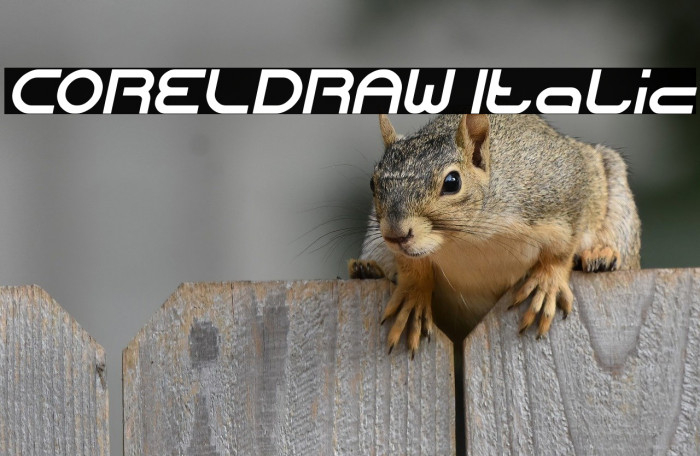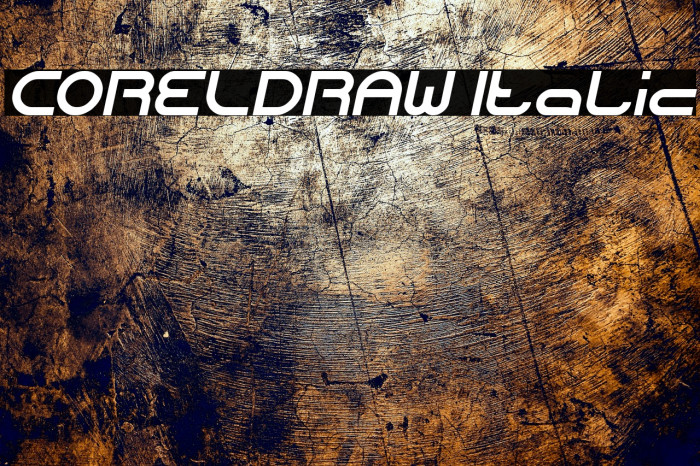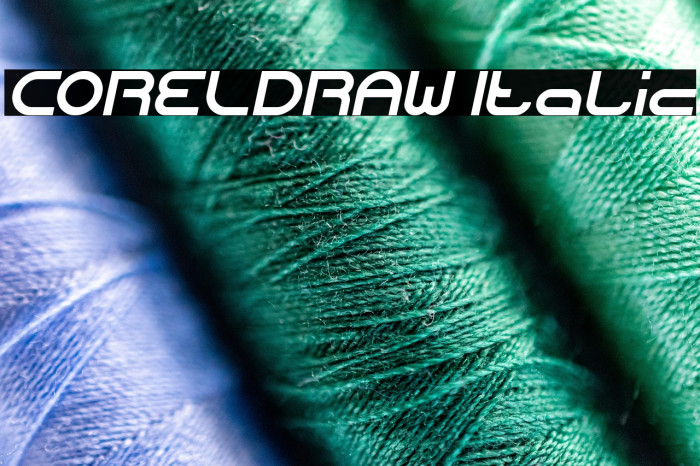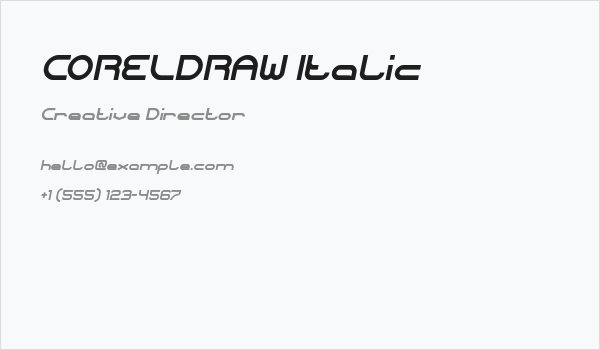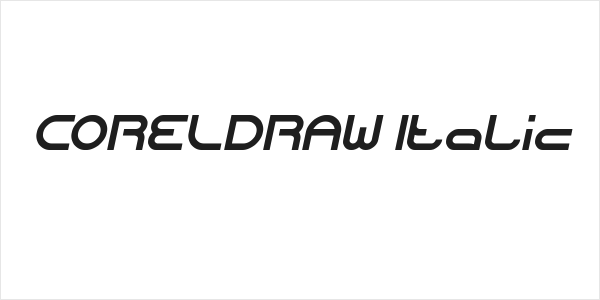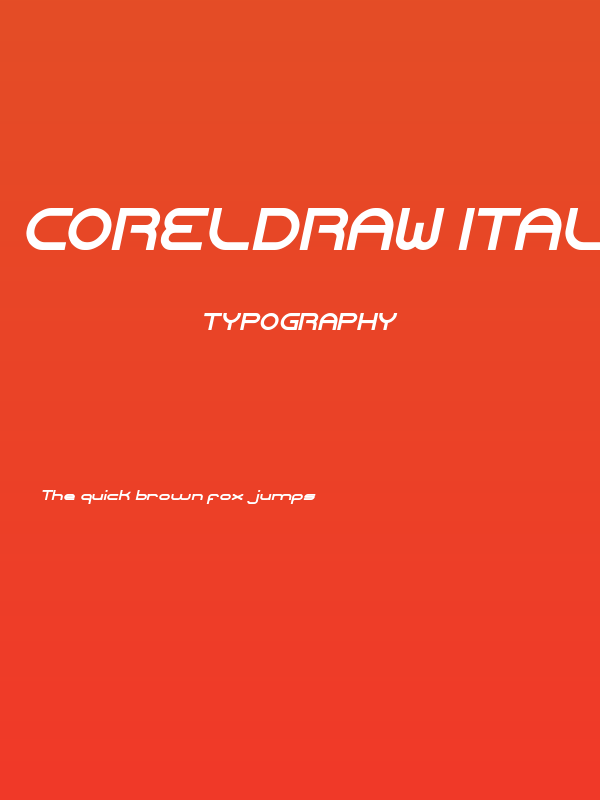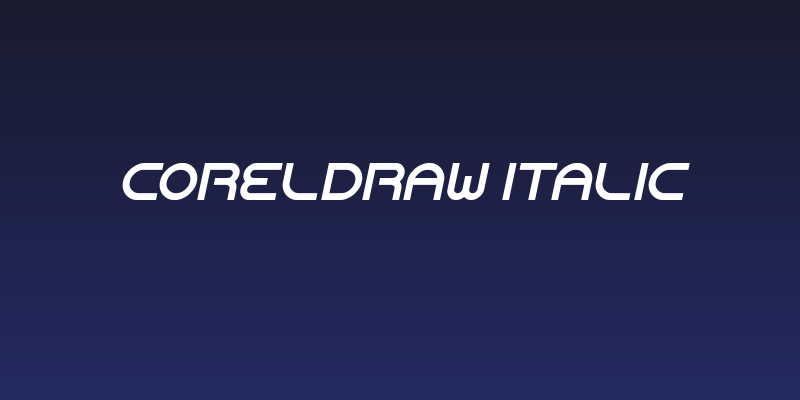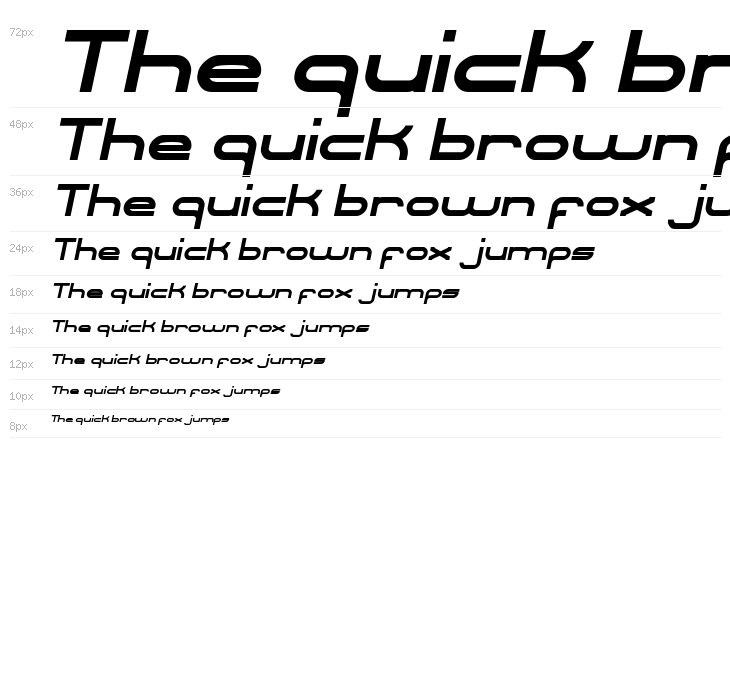
CORELDRAW Italic Font
CORELDRAW Italic Description
This font features a sleek, modern design with a distinct italic slant, giving it a dynamic and forward-moving appearance. The characters are crafted with smooth curves and sharp edges, creating a sense of speed and efficiency. The uppercase and lowercase letters maintain a consistent style, with a slightly condensed form that enhances readability while preserving a unique aesthetic. The numerals and special characters are designed to complement the alphabet, maintaining the same stylistic elements. This font is ideal for projects that require a contemporary and energetic look.
| Use Case | Headlines, Logos, Digital Interfaces |
| Proposed Projects | Ideal for branding, advertising, sports-related designs, and modern digital interfaces. |